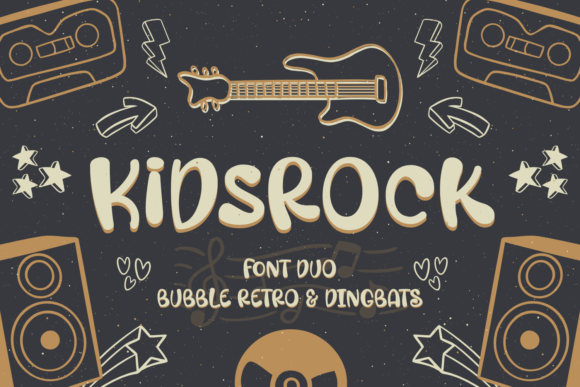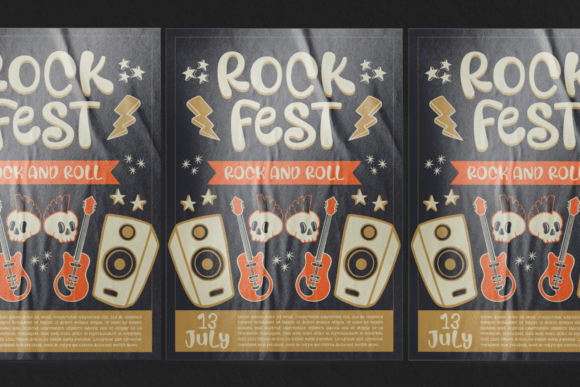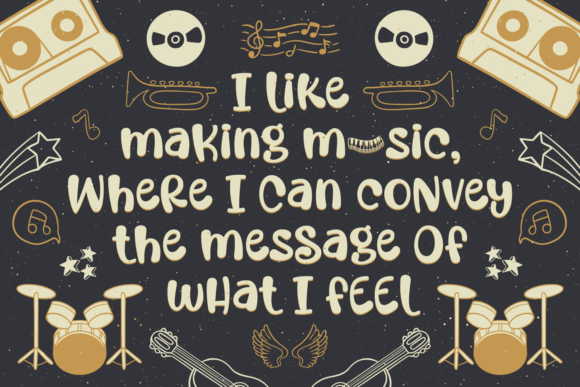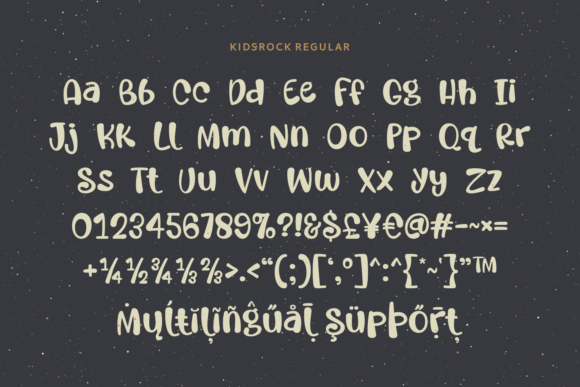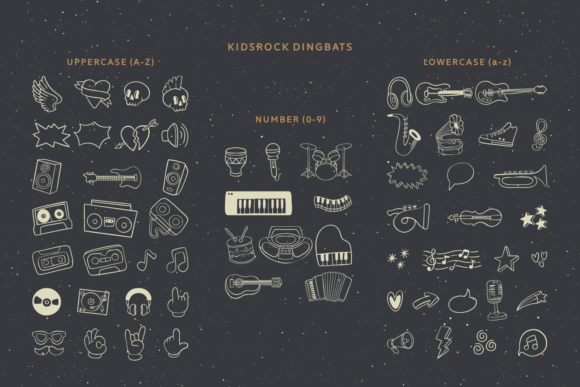
Find Your Groove with the Kidsrock Duo Font
Have you ever stared at a blank page, struggling to find the perfect combination of words to express your creative vision? We’ve all been there – the blank page staring back at us, a canvas waiting to be filled. That’s when the magic happens, and the right font can make all the difference.
Enter the Kidsrock Duo Font, a dynamic duo that brings a touch of playfulness and music to your designs. This friendly font is more than just a pretty face; it’s a powerful tool that can elevate any project and make it truly unforgettable. Whether you’re working on a children’s book, a music festival poster, or a fun family blog, the Kidsrock Duo Font is the perfect companion to bring your ideas to life.
Kidsrock Duo Font Key Features
- Font Family: Kidsrock Duo
- Font Styles: Regular, Bold
- Character Set: Latin, Cyrillic, Greek, and other languages
- Unique Characteristics: A fun, playful font with rounded edges and a modern feel, ideal for children’s books, educational materials, and kid-friendly designs.
Review: Kidsrock Duo Font
Overall, I’d say the Kidsrock Duo Font has some great qualities, but it also has some limitations that prevent it from being a top choice for me.
- ✨ Unique and playful feel: The font has a fun, energetic vibe that’s perfect for kid-focused projects or any project that needs a youthful touch.
- ✨ Clean lines and simple shapes: The font’s simplicity makes it easy to read and use, even at smaller font sizes.
- ✨ Wide range of weights and styles: The font comes with a variety of weights and styles, making it easy to find the perfect fit for your design.
- ⚠️ Limited versatility: While the font is great for kid-focused projects, it may not be the best choice for more formal or professional projects.
- ⚠️ Some letterforms may be difficult to read: A few of the letterforms, such as the “k” and “q”, may be tricky to read at smaller font sizes.
Overall, I’d say the Kidsrock Duo Font is a great choice for designers who need a fun, playful font for kid-focused projects. However, it may not be the best choice for more formal or professional projects.